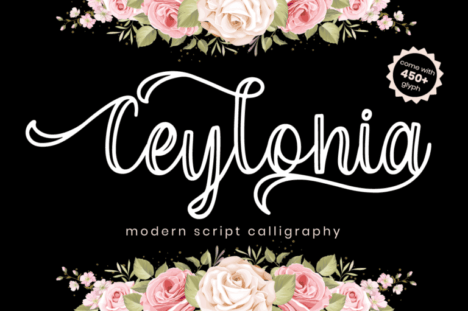
Ceylonia – Script Font
Ceylonia is lovely display font inspired by outline lettering, including 6 stylistic set that perfect for any combination for your design.
Ceylonia perfectly macth for design with valentine theme, any product like book cover, t-shirt, branding, promotion, social media post, quotes, wedding, photography and more.
– Multilingual Support
– More than 450 glyph
– Support Opentype features